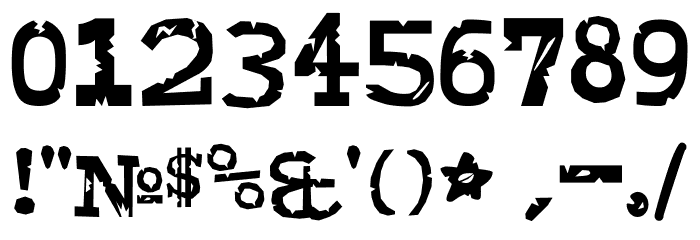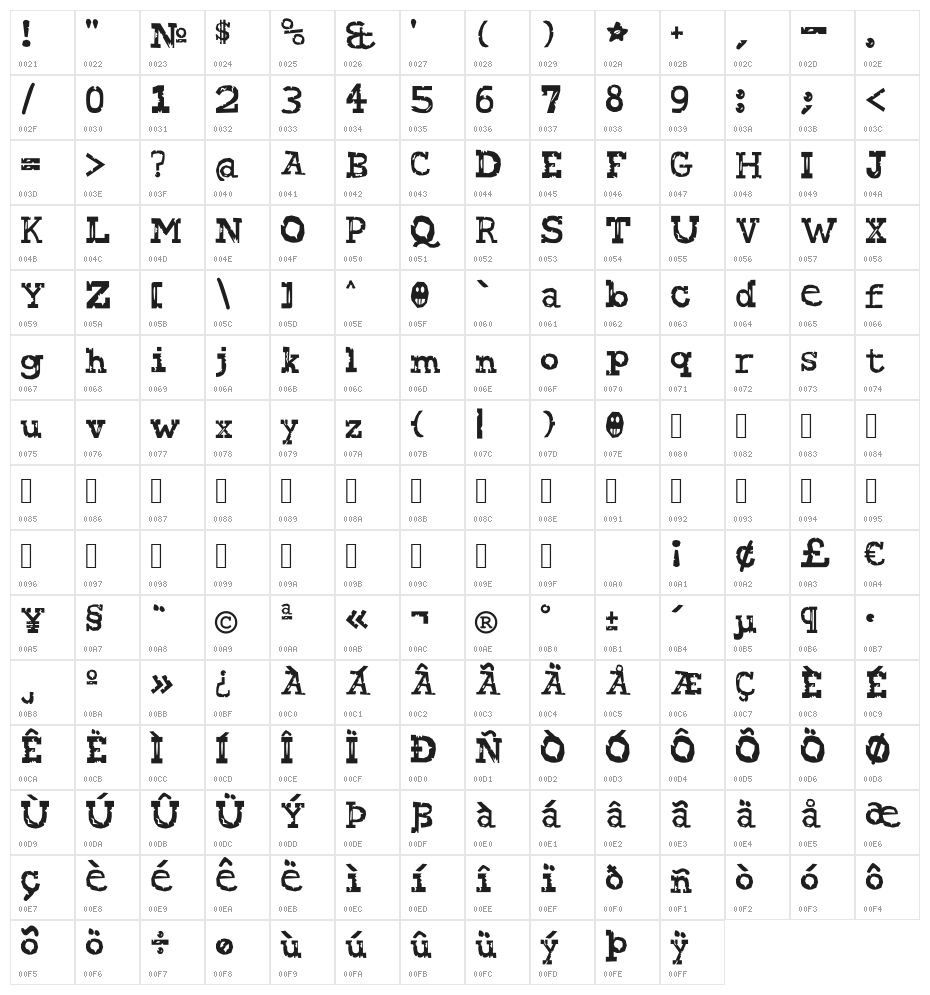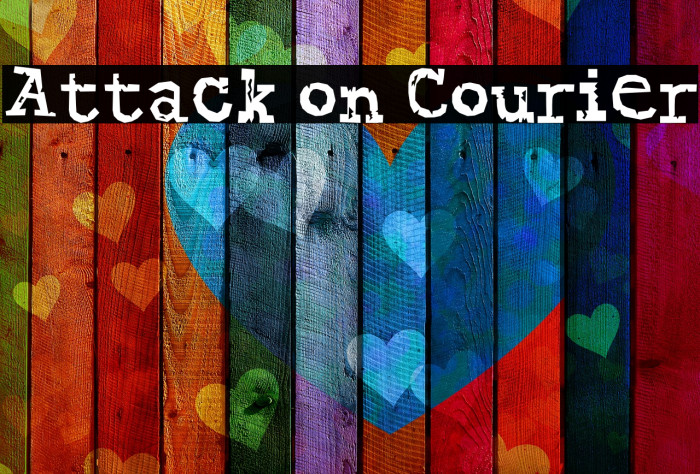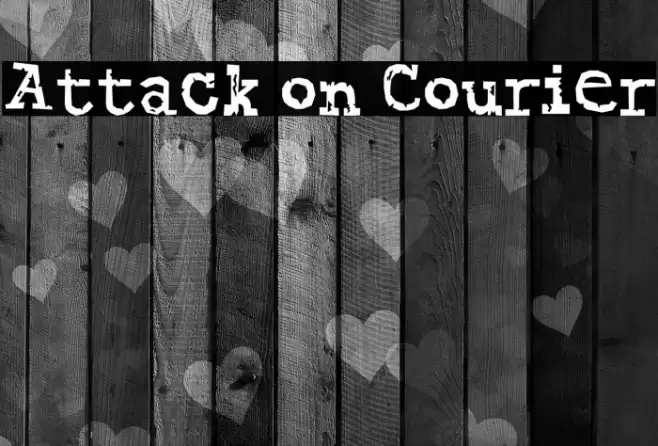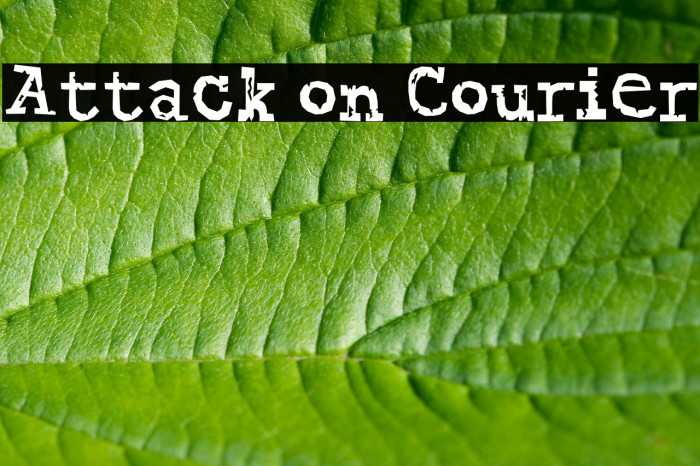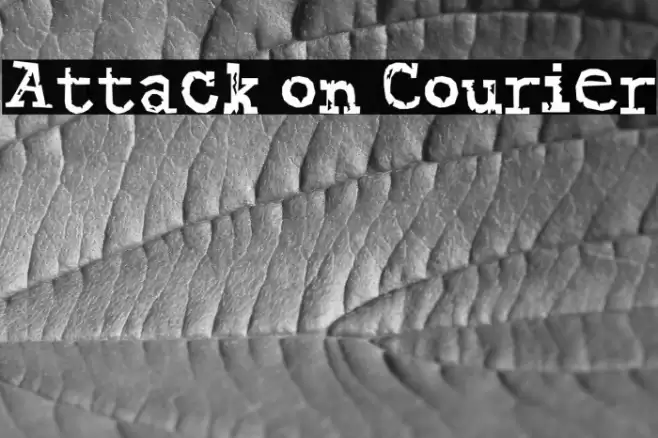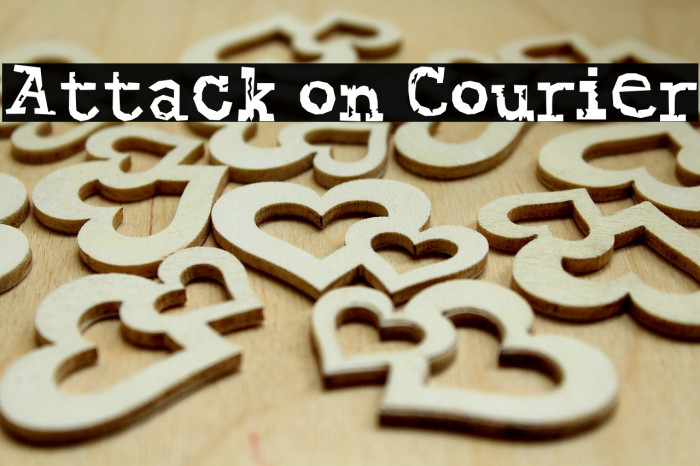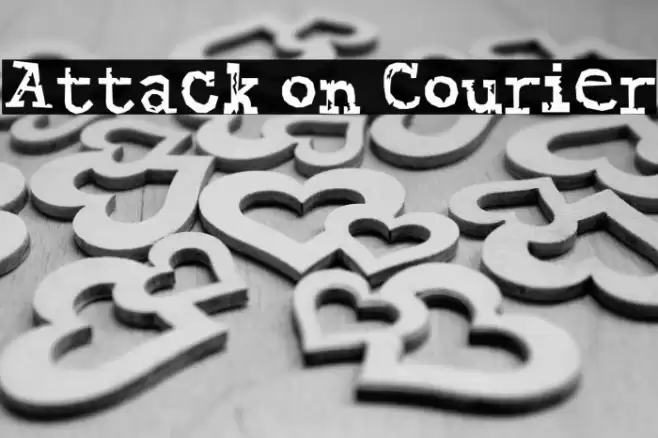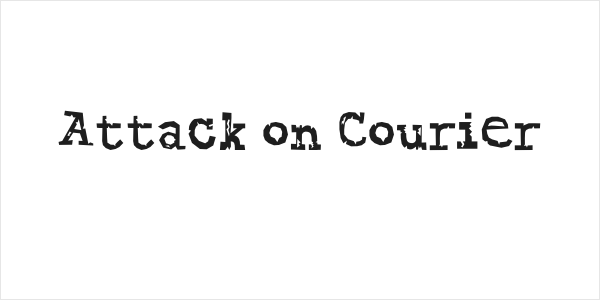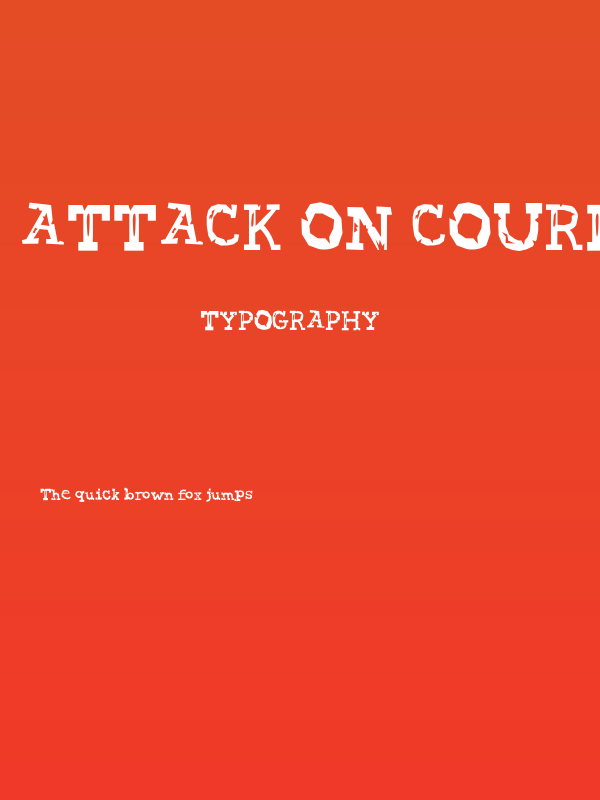
Attack on Courier Font
Attack on Courier Description
This font features a bold and distressed style, with each character appearing as if it has been roughly cut or torn. The uppercase and lowercase letters maintain a consistent height, giving a uniform appearance despite the chaotic design. The numerals and special characters follow the same rugged aesthetic, making the font suitable for projects that require a rebellious or edgy look. The irregular edges and varying stroke thicknesses add to the font's dynamic and energetic feel, making it stand out in any design.
| Proposed Projects | Ideal for music album covers, posters, or any design needing a grunge or punk vibe. |